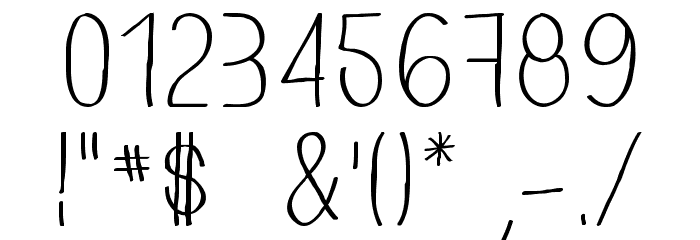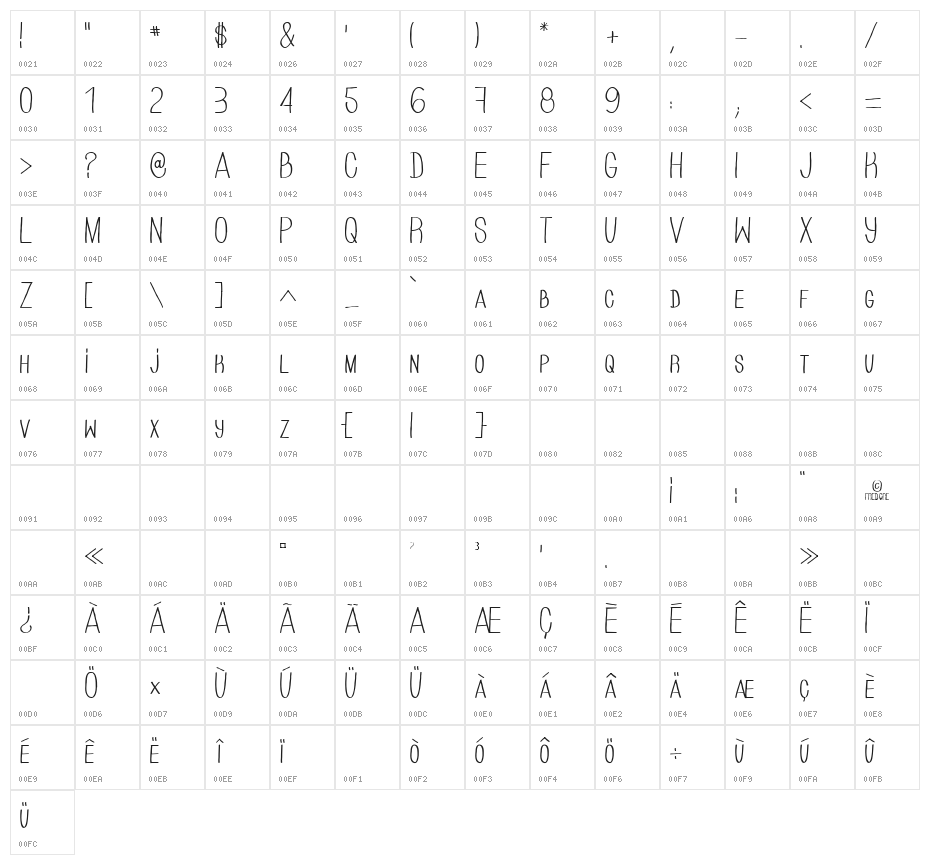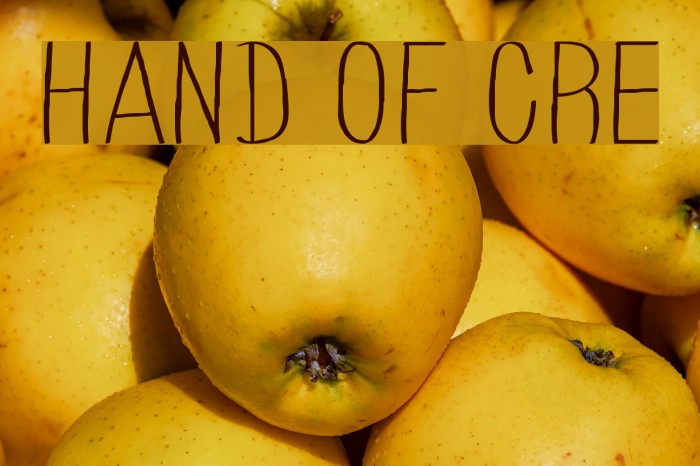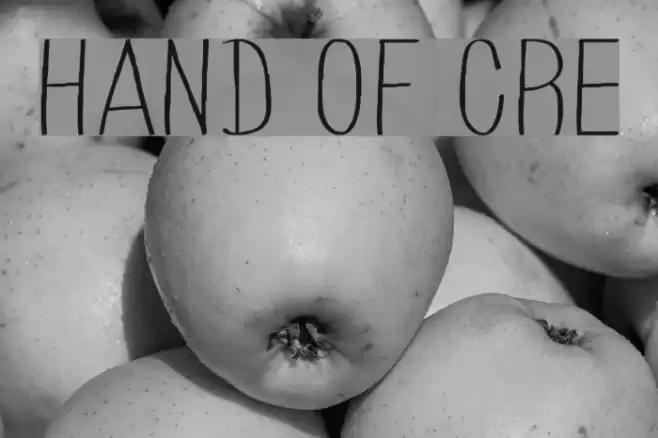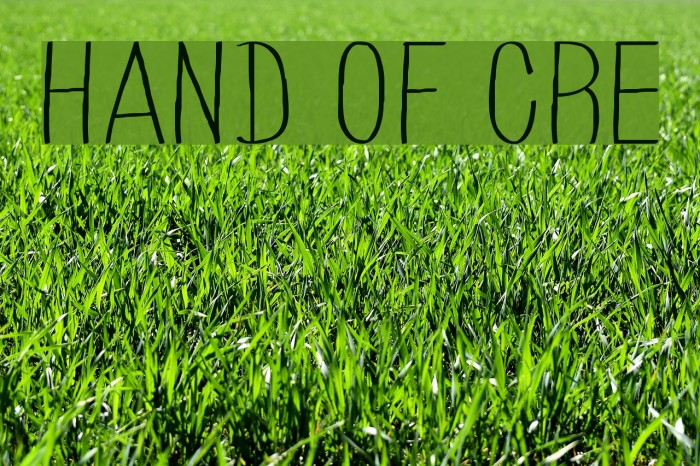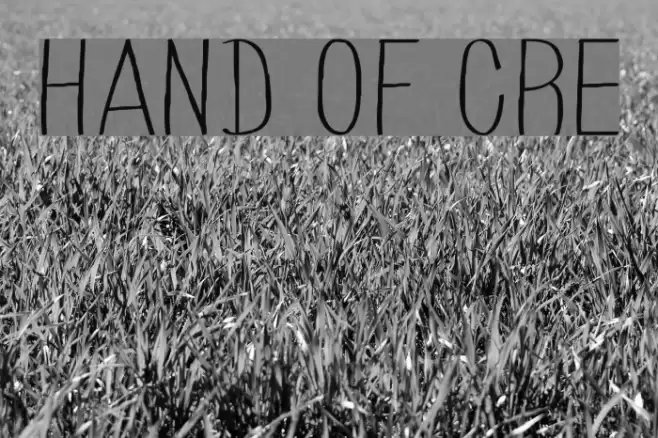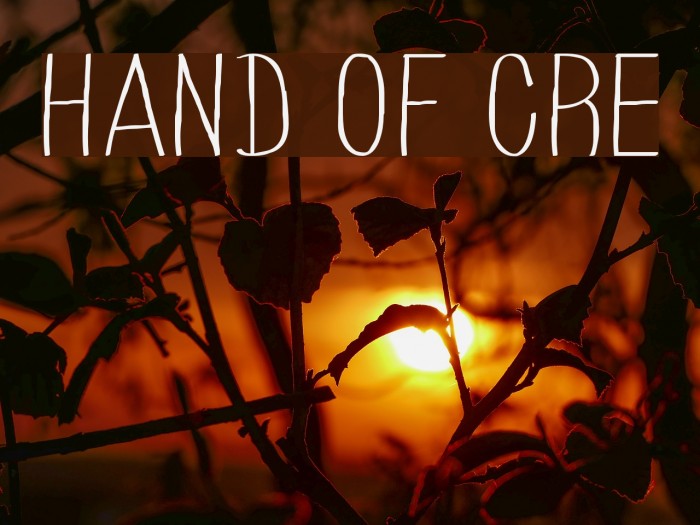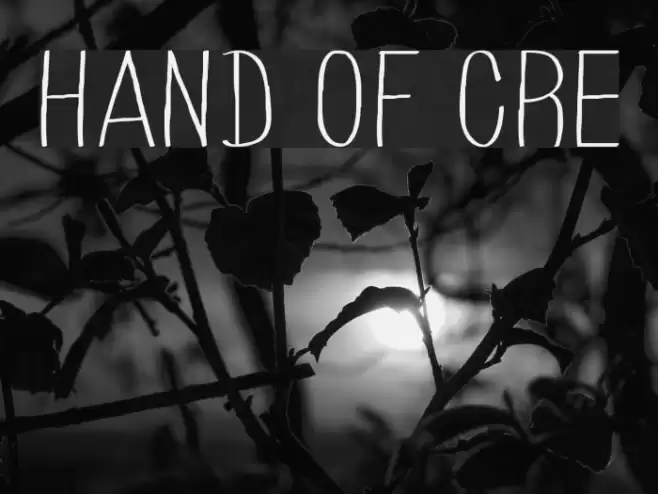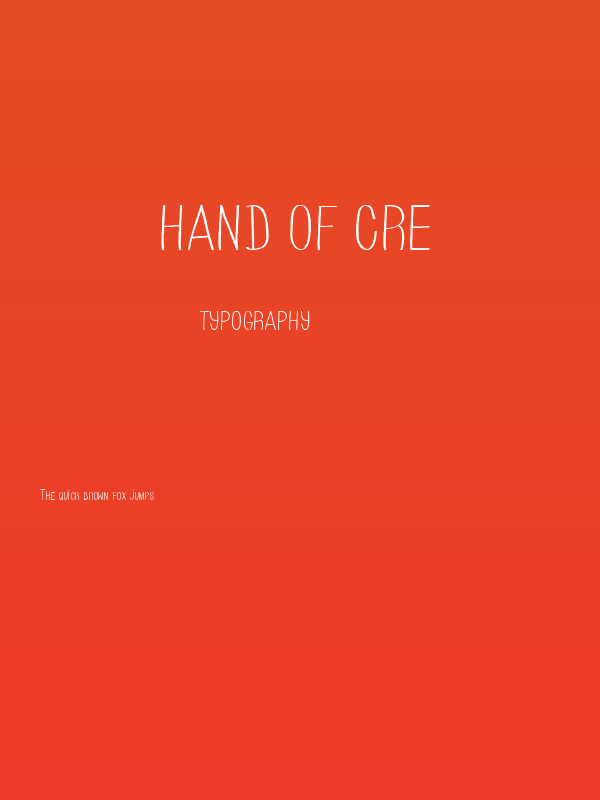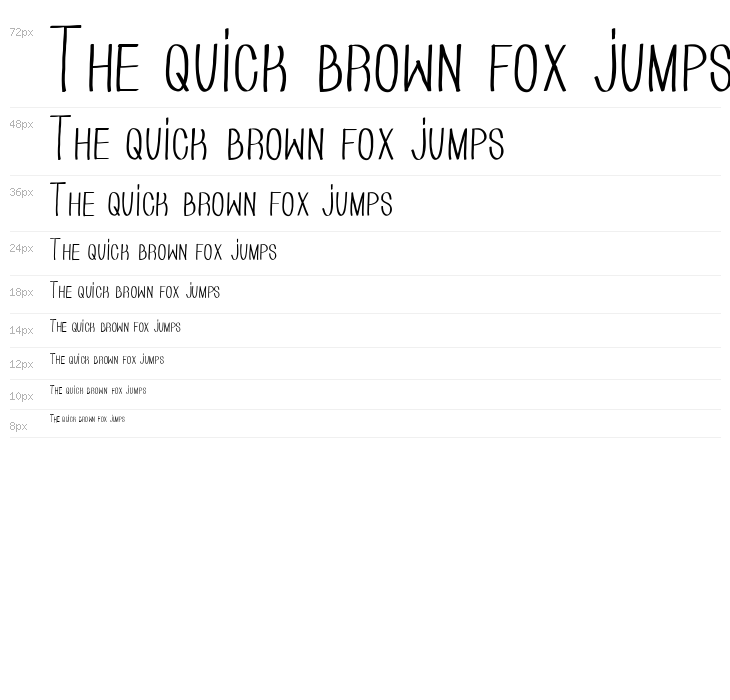
HAND OF CRE Font
HAND OF CRE Description
This font features a playful and casual handwritten style, characterized by its tall, narrow letters with a slight slant. The strokes are uneven, giving it a natural and organic feel, reminiscent of hand-drawn text. The uppercase and lowercase letters maintain a consistent style, with rounded edges and a whimsical touch. Numbers and special characters follow the same aesthetic, ensuring a cohesive look across all text. This font's unique personality makes it stand out, ideal for projects that require a personal or informal tone.
| Use Case | Logos, Headlines, Informal text |
| Proposed Projects | Ideal for greeting cards, invitations, personal blogs, and creative branding projects. |